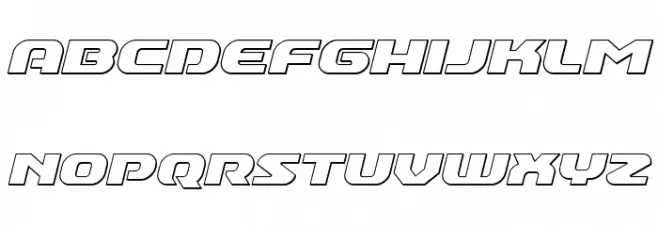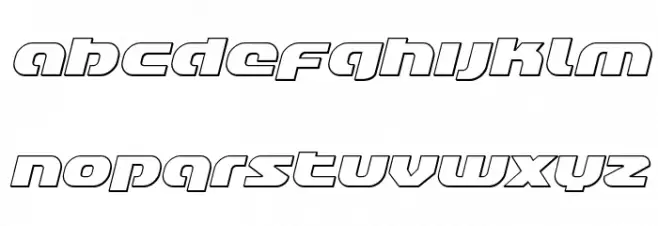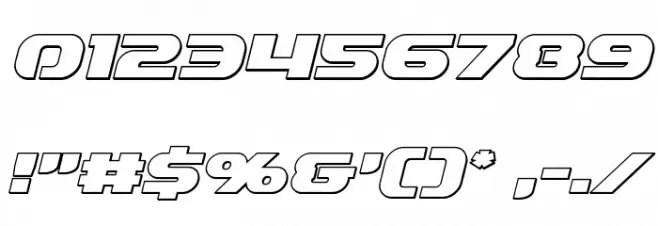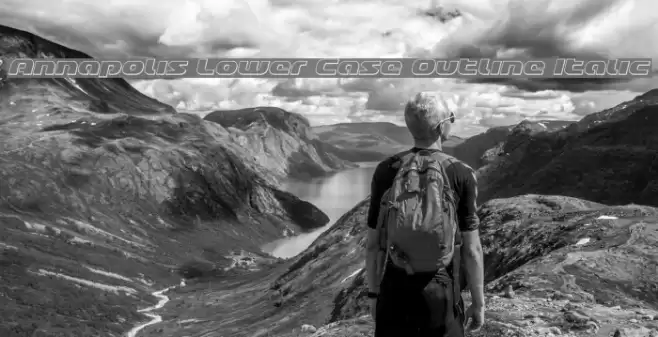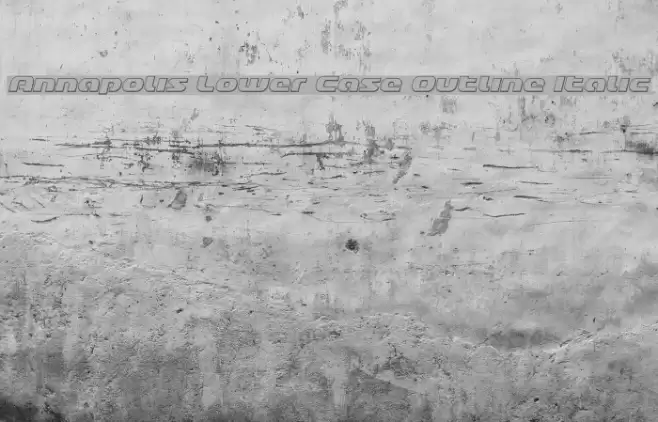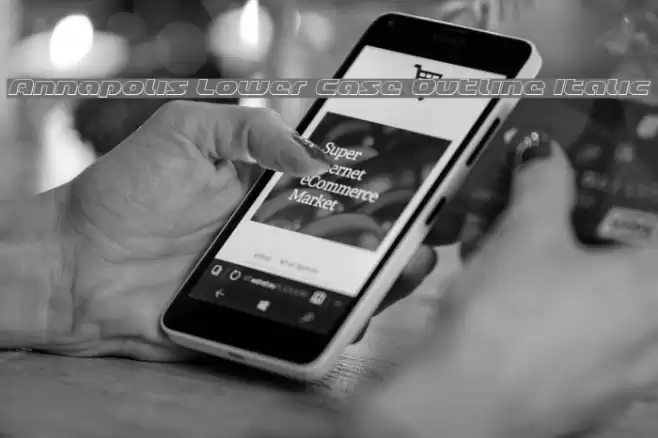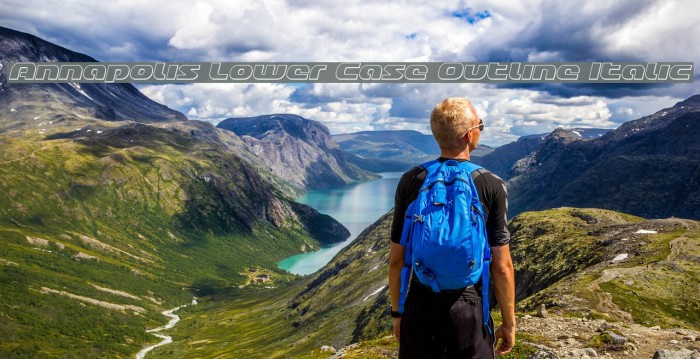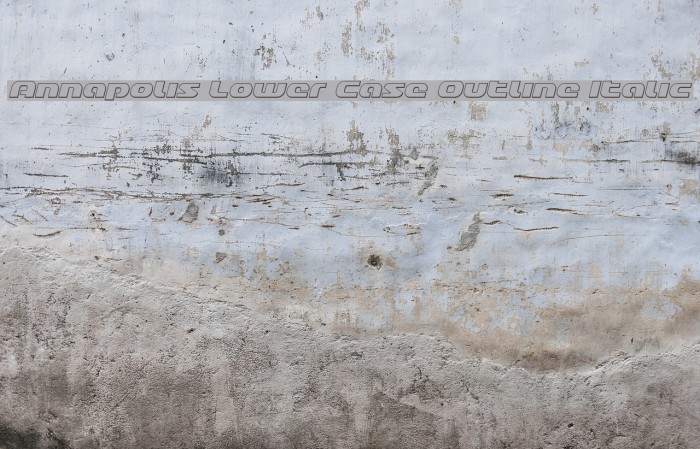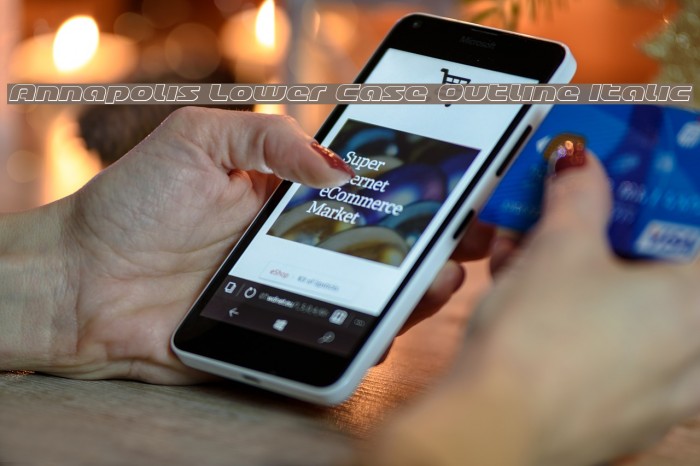
Annapolis Lower Case Outline Italic
This font features a modern, outlined style with a distinct italic slant, giving it a dynamic and forward-moving appearance. The characters are bold and geometric, with clean lines and a uniform thickness throughout. The uppercase and lowercase letters maintain a consistent style, with rounded edges that soften the overall look. The numerals and special characters follow the same design principles, ensuring a cohesive appearance across all glyphs. The outlined nature of the font allows for creative use of color and background, making it versatile for various design applications.
A modern, italic, outlined font with bold, geometric characters.
- Proposed Projects: Ideal for futuristic designs, tech-related branding, posters, and digital artwork.
- Use Case: Logos, Headlines, Posters